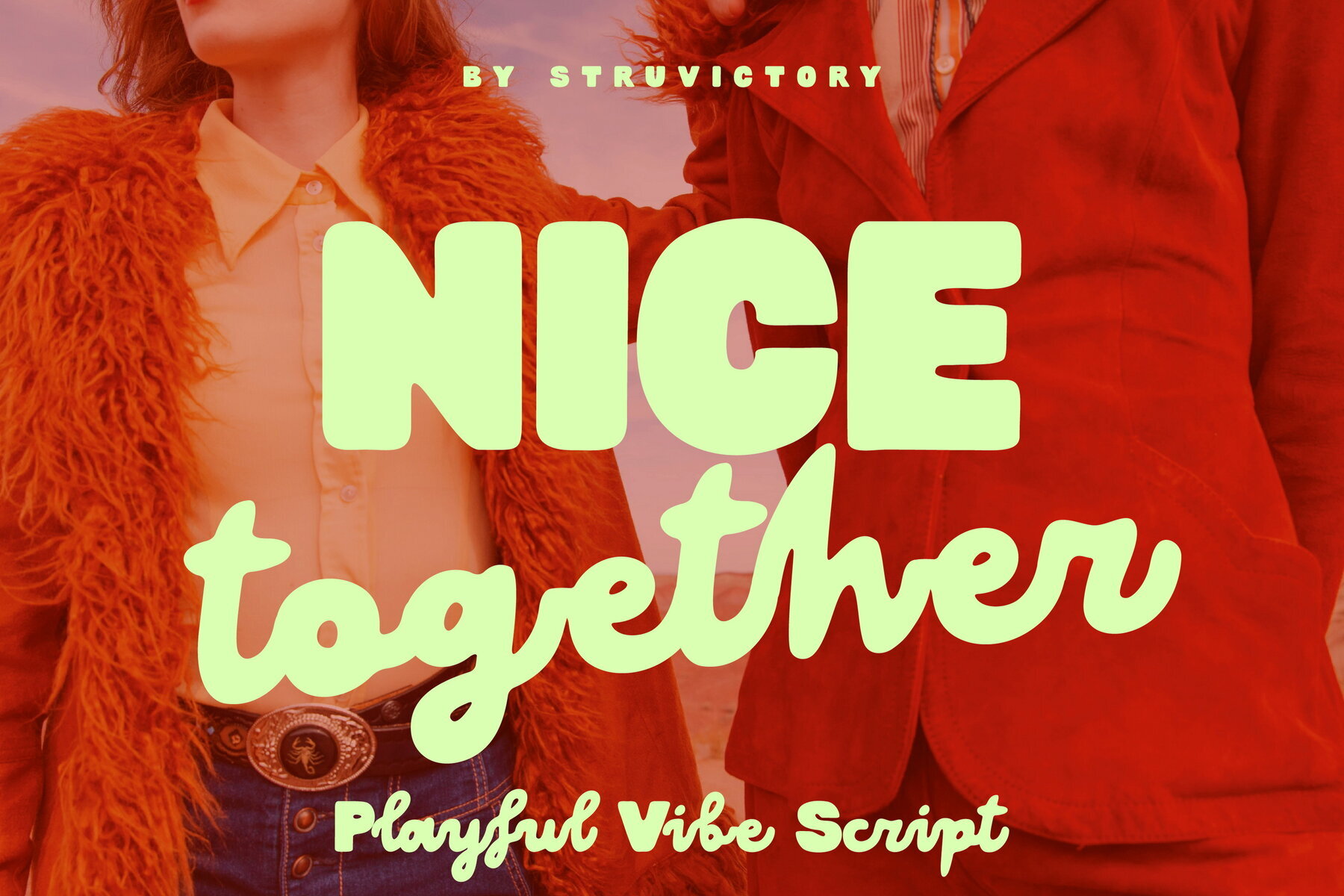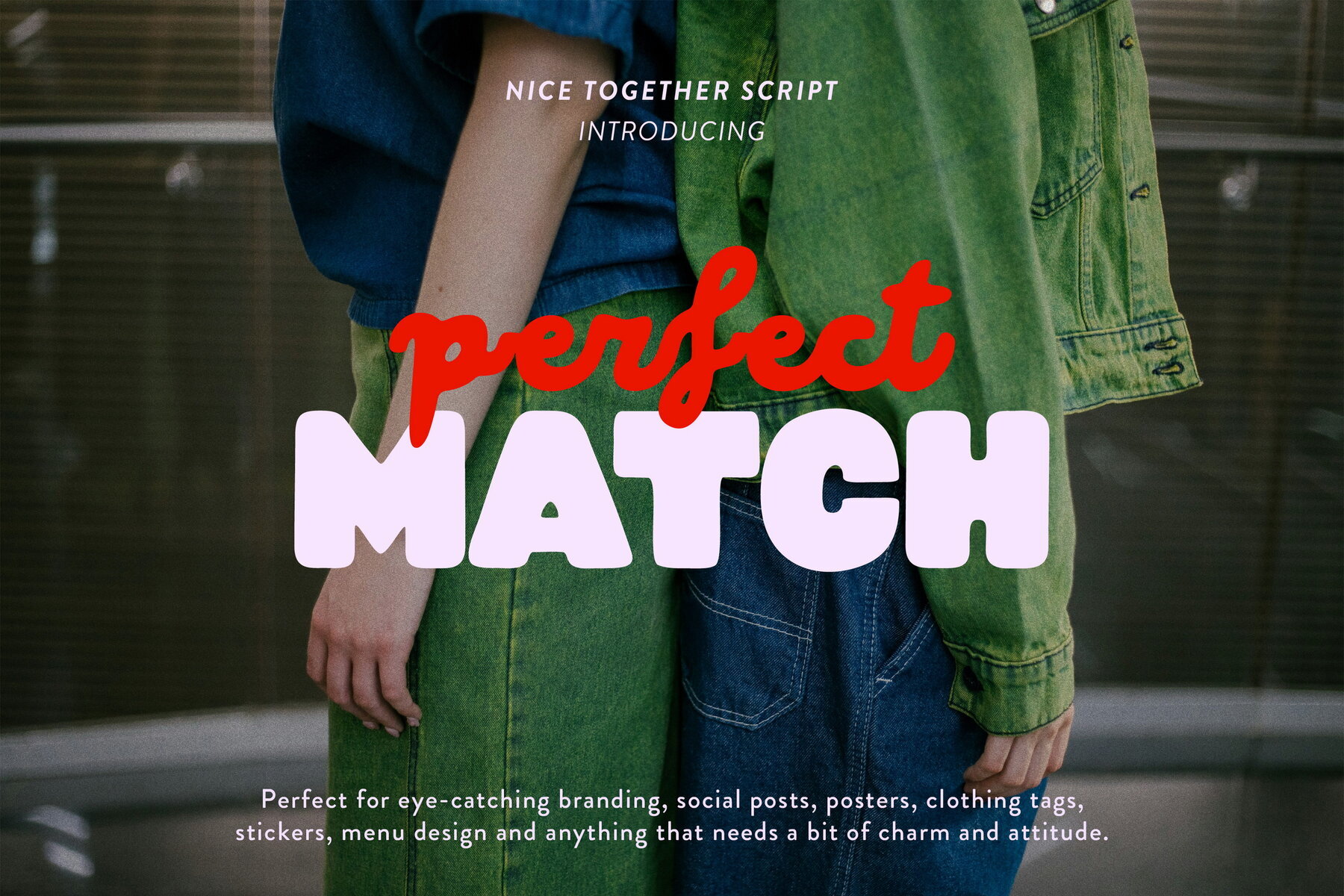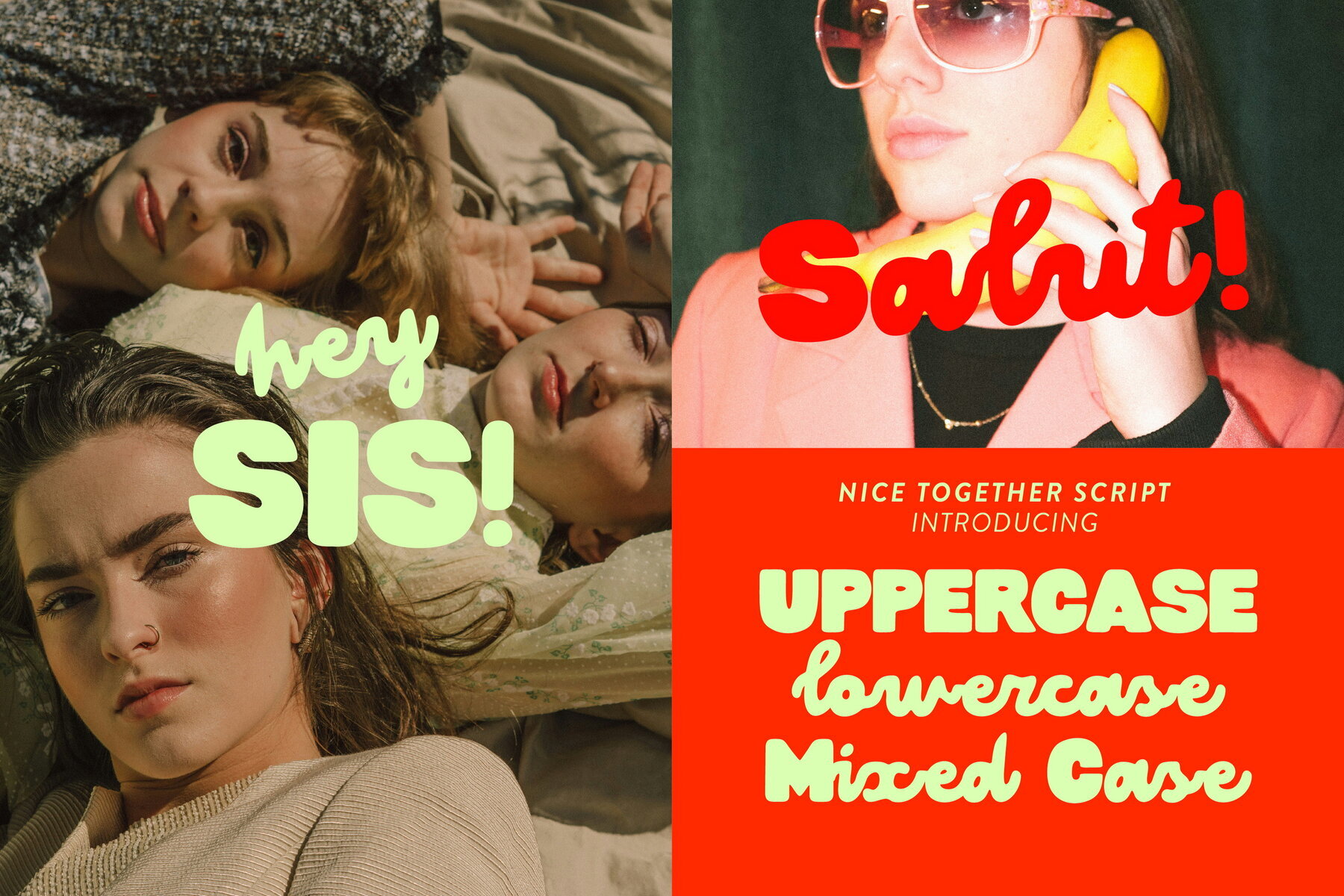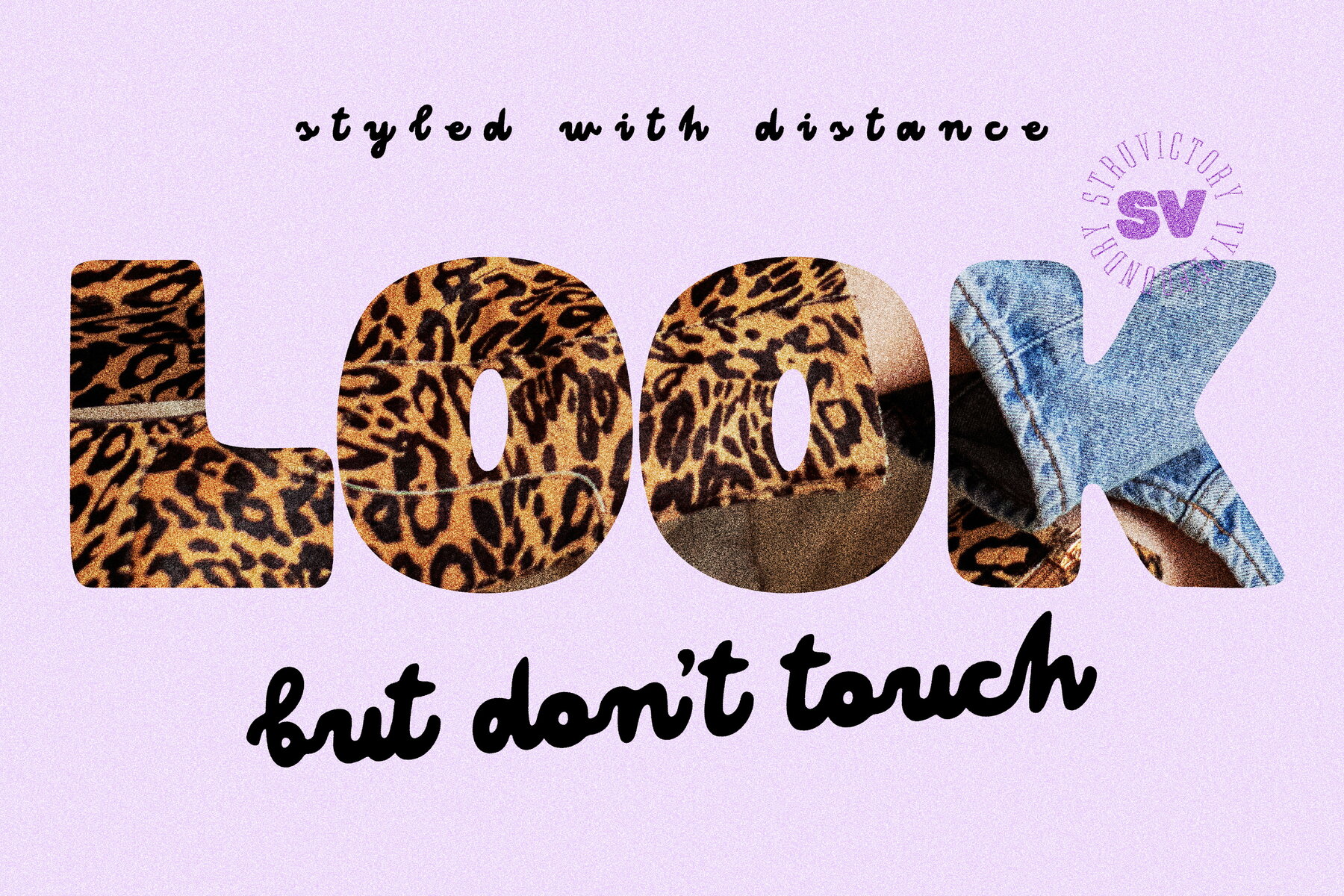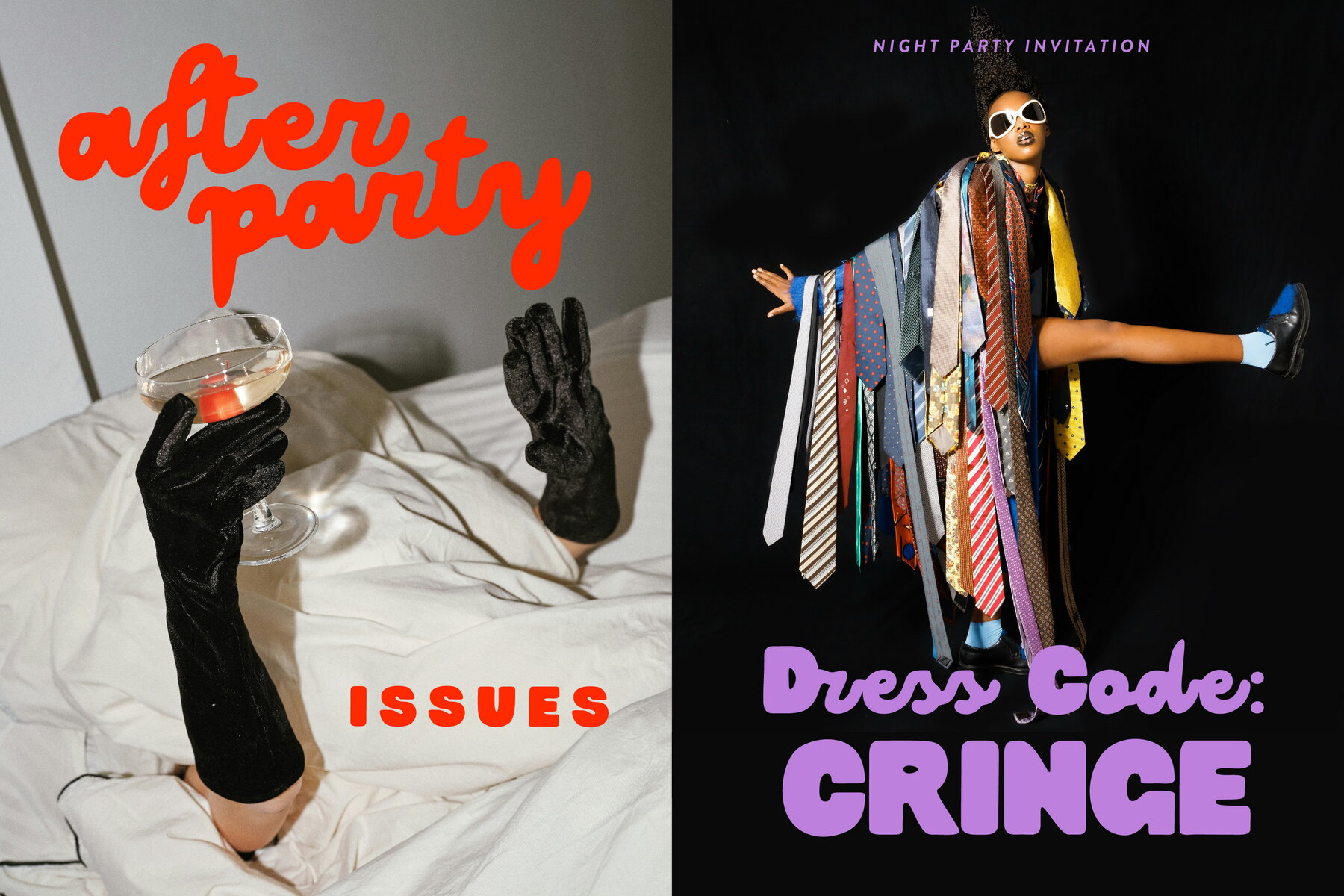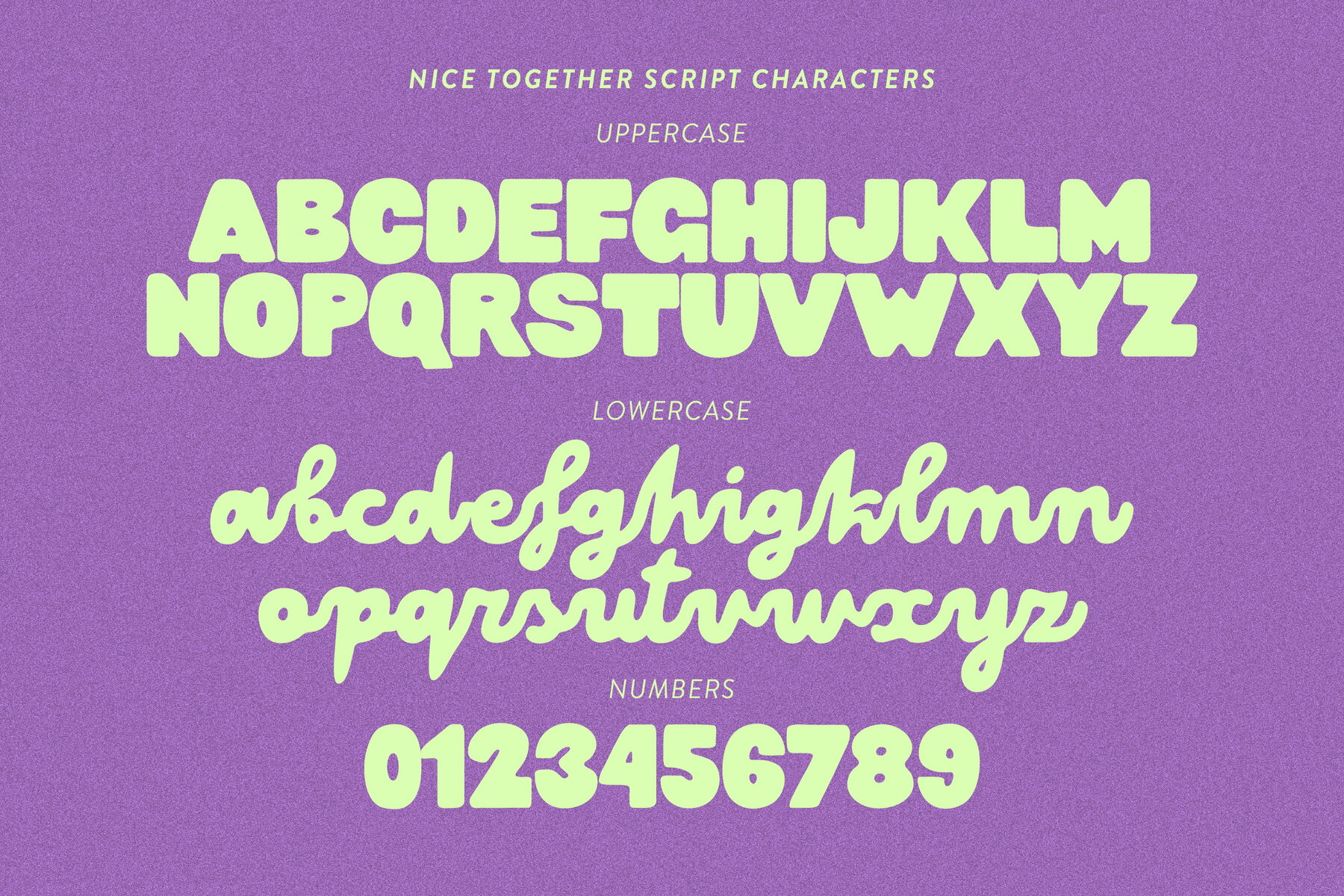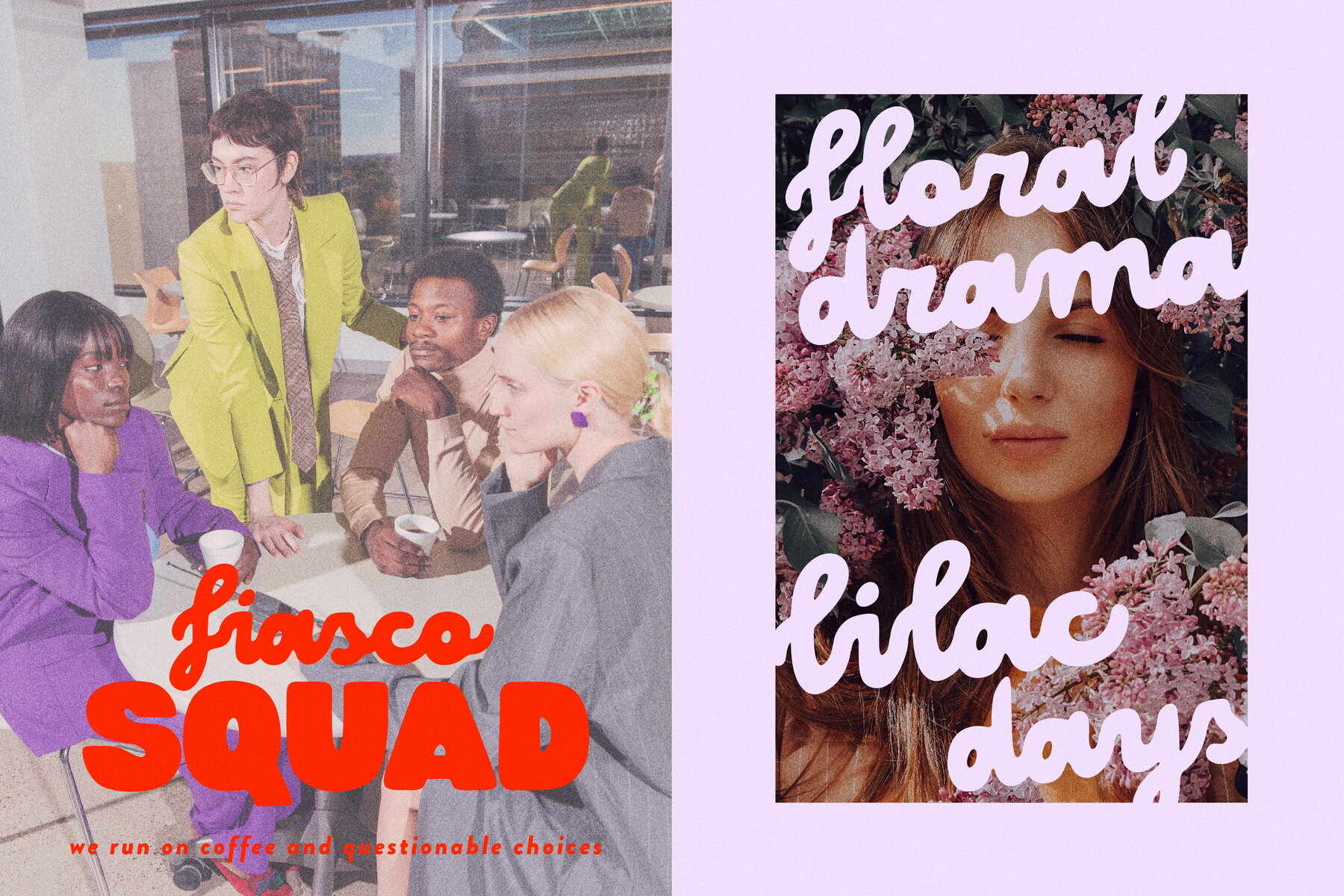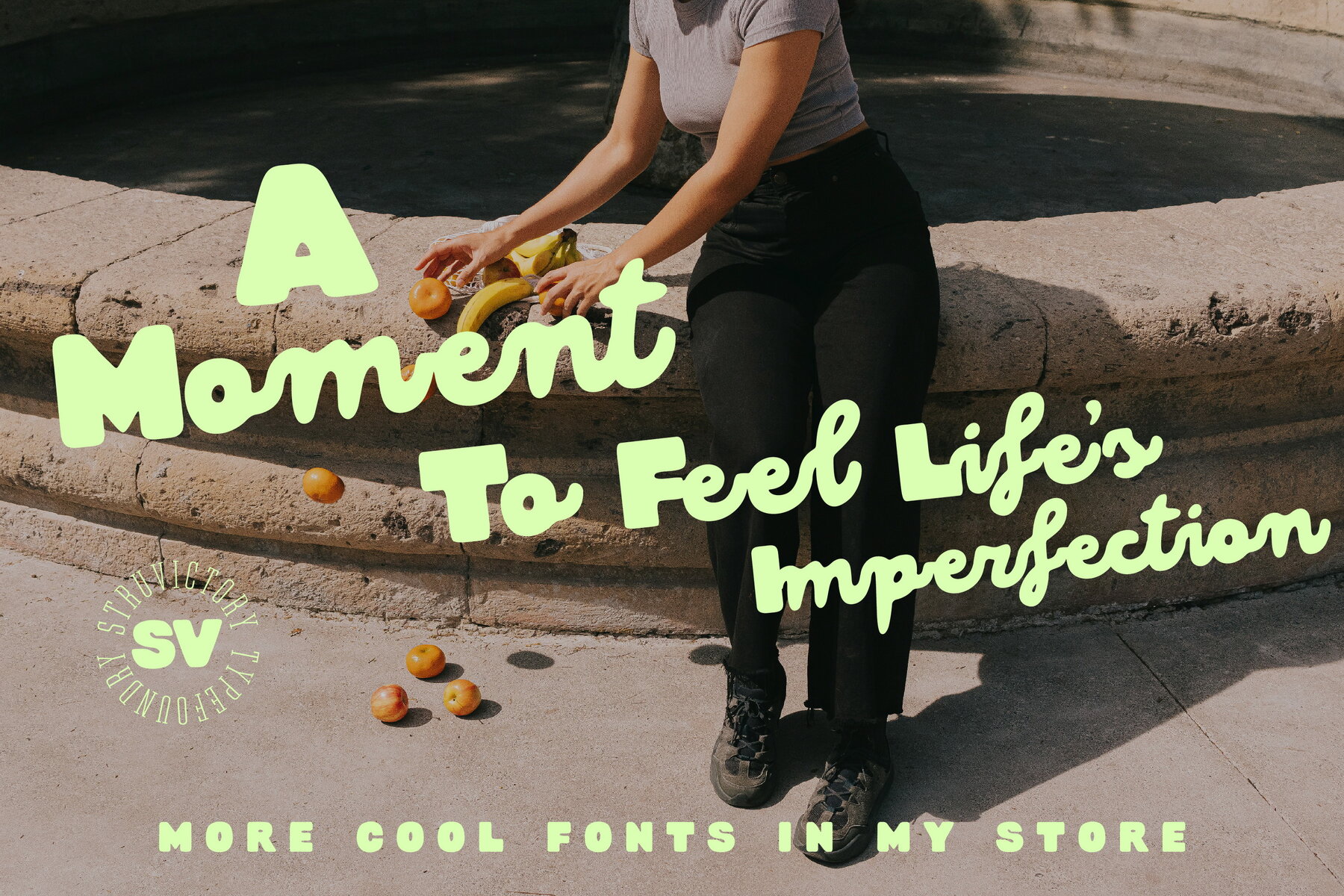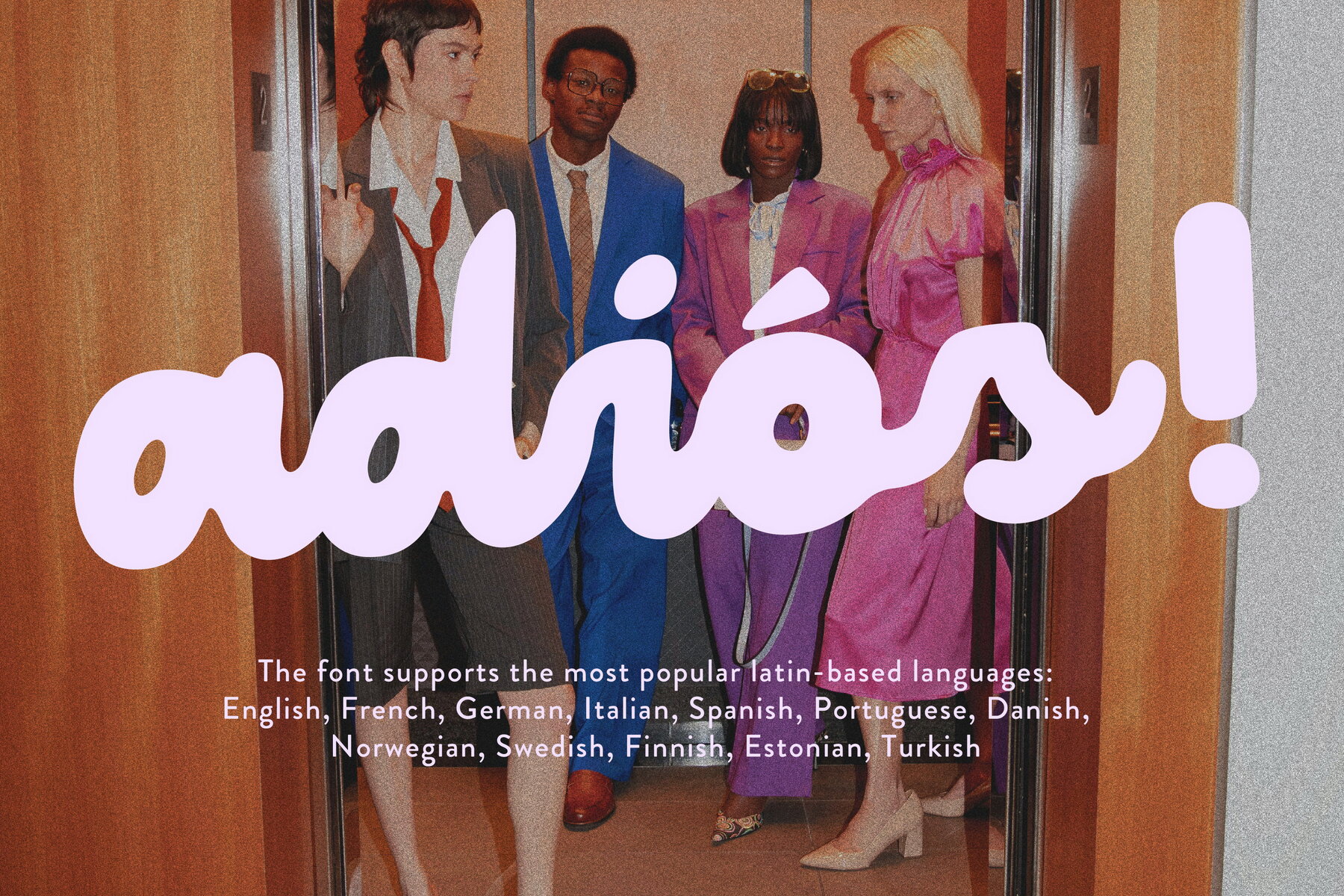
Nice Together Font
Nice Together Script
Nice Together offers a lively handwritten font pairing that includes two distinctive styles—an all-caps sans serif and a playful lowercase script. This combination delivers a dynamic and contemporary appearance, marked by its friendly yet bold character. Ideal for branding projects, social media graphics, posters, clothing tags, stickers, and menu designs, this font adds charm and a touch of attitude to any creative endeavor. Features:Nice Together: Playful Handwritten Font Duo